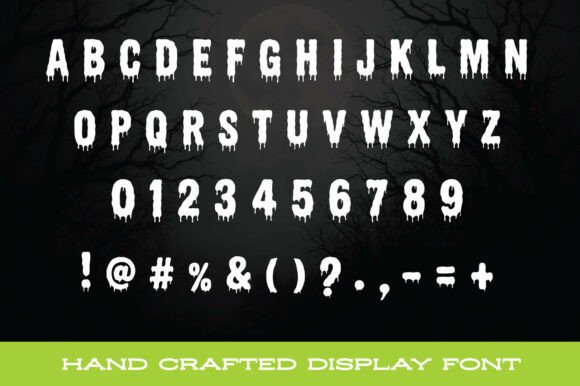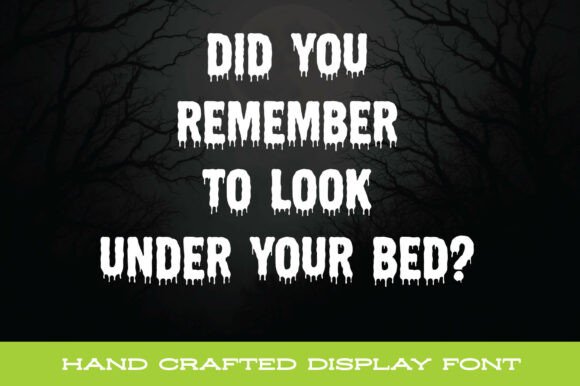
Introduction to Inkrotica Font
As designers, we’ve all been there – staring at a blank canvas, trying to spark that creative fire that drives our projects forward. For me, it’s often the discovery of a new design resource that sets the imagination ablaze. Recently, I stumbled upon the Inkrotica Font, and I knew I had to share it with the world. This hauntingly beautiful display font is a game-changer for designers looking to add a touch of darkness to their creative project.
With its drippy, grotesque aesthetic, the Inkrotica Font is the perfect tool for designers seeking to create high-quality, eye-catching visuals for horror-themed posters, flyers, and titles. Its unique, irregular flow and distorted edges create a sense of beautiful decay, making it a valuable asset for any design project.
Key Features of Inkrotica Font
- High-quality, hand-drawn design suitable for various creative projects.
- Unique, artistic design style that adds a touch of elegance to any creative project.
Honest Review: Inkrotica Font
I recently had the chance to work with the Inkrotica Font, and I must say, it’s been a game-changer for my design projects. ✨ This high-quality font is a fantastic addition to any design resource, offering a unique and creative flair that’s perfect for any project.
One of the things I love about the Inkrotica Font is its versatility. It works beautifully with a transparent background, allowing you to layer it over images and other design elements to create a stunning visual effect. The font itself is also incredibly customizable, making it easy to adjust the size, color, and style to fit your creative vision.
Here are some of the key features that make the Inkrotica Font stand out:
- Customizable font styles and sizes
My only caution is that the Inkrotica Font may not be suitable for all types of projects. ⚠️ For example, it may not be the best choice for body text, as it can be quite ornate and overwhelming. However, for headings, titles, and other design elements, it’s a fantastic choice.
Overall, I’m thoroughly impressed with the Inkrotica Font, and I highly recommend it to any designer looking for a unique and high-quality design resource. With its versatility, customizability, and free download option, it’s a must-have for any creative project.
Tips for Getting the Most Out of Inkrotica Font
To get the most out of the Inkrotica Font, experiment with different font sizes, colors, and layering techniques. You can also combine the font with other design elements to create unique and eye-catching designs.
Common Use Cases for Inkrotica Font
The Inkrotica Font is ideal for a variety of creative projects, including logos, branding materials, and marketing materials. Its high quality and transparent background make it a great resource for designers and non-designers alike.